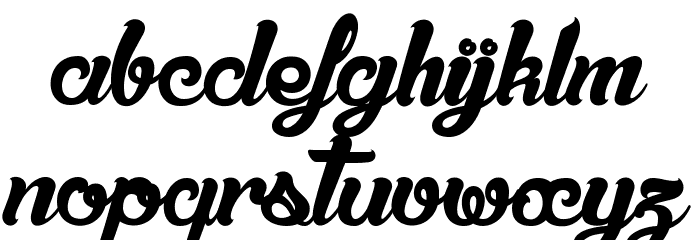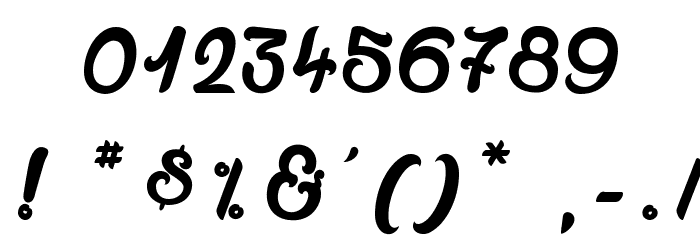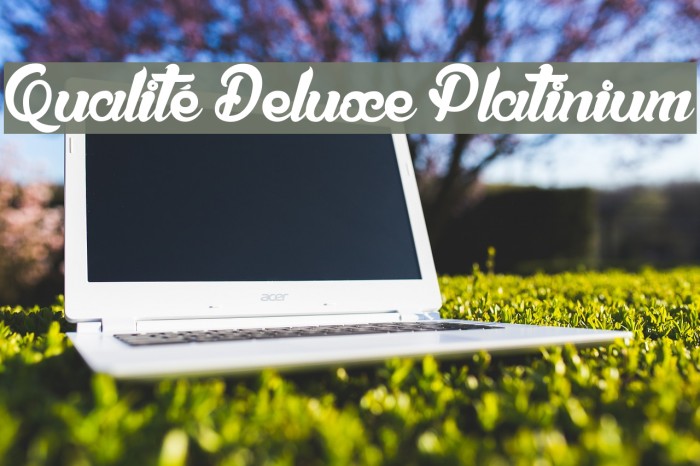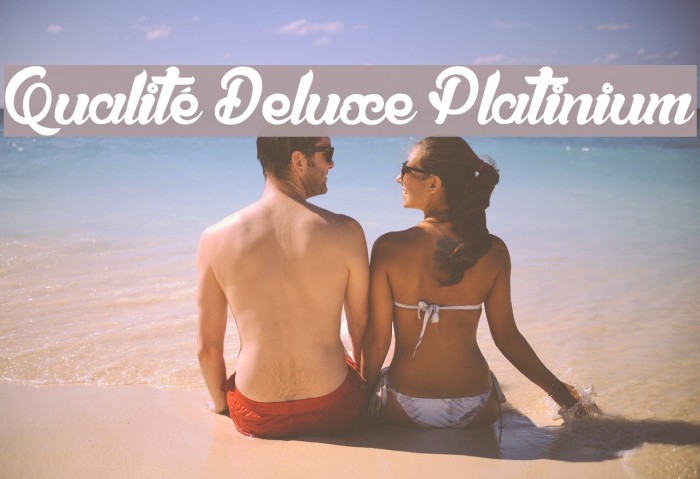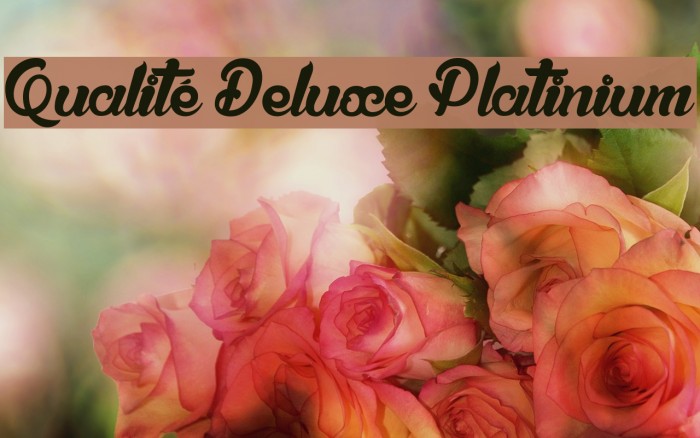
Qualité Deluxe Platinium Font
This font features a bold, flowing script style with elaborate swashes and flourishes that give it a luxurious and elegant appearance. The uppercase letters are particularly ornate, with intricate loops and curves that suggest a sense of movement and grace. The lowercase letters maintain the same fluidity, with some characters featuring unique ligatures that enhance the overall aesthetic. The numerals are consistent with the script style, offering a cohesive look across all characters. Special characters are designed to match the decorative style, making this font suitable for creative and expressive projects.
A bold, elegant script font with ornate swashes and flowing curves.
- Proposed Projects: Ideal for wedding invitations, luxury branding, greeting cards, and decorative headlines.